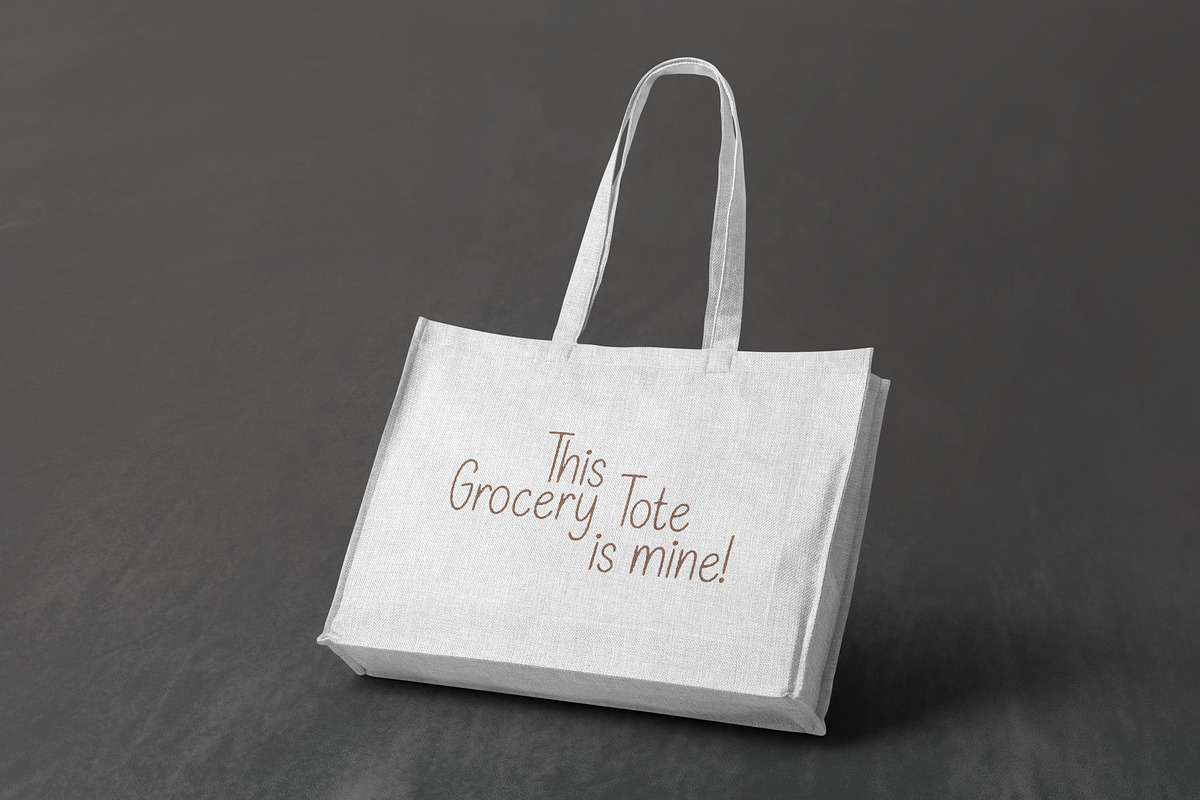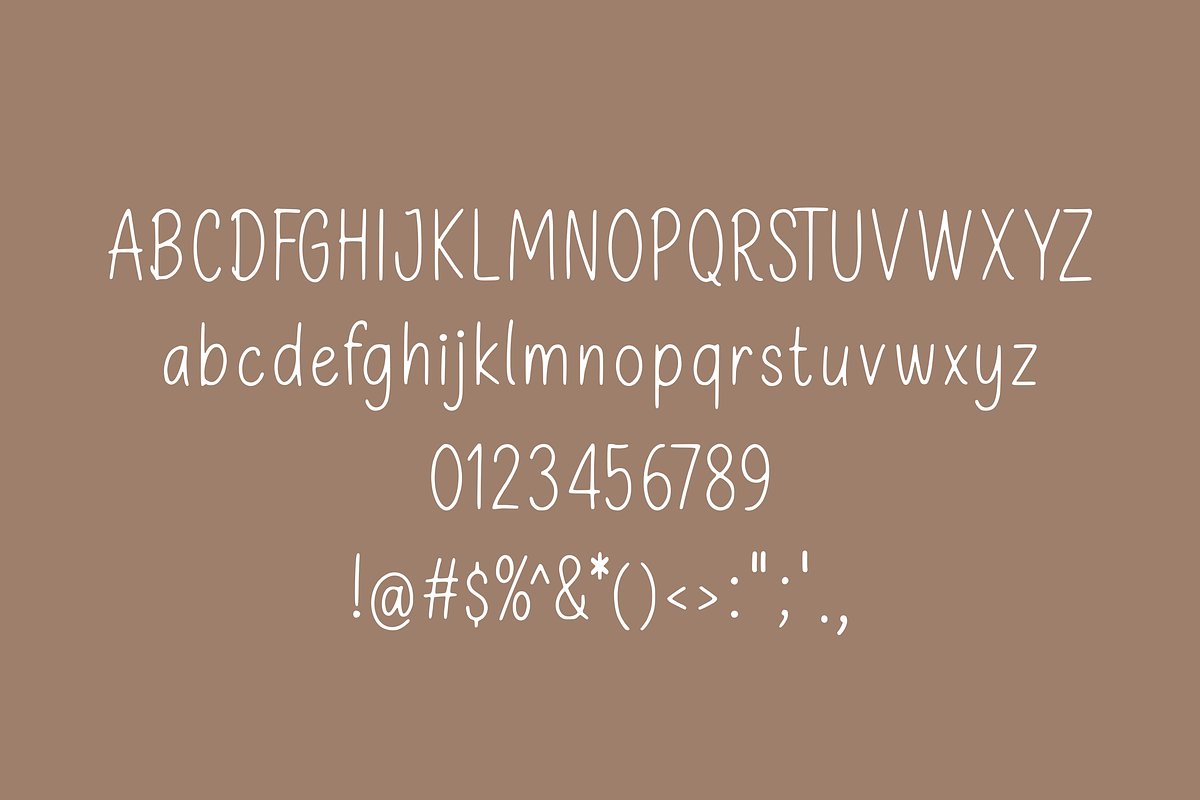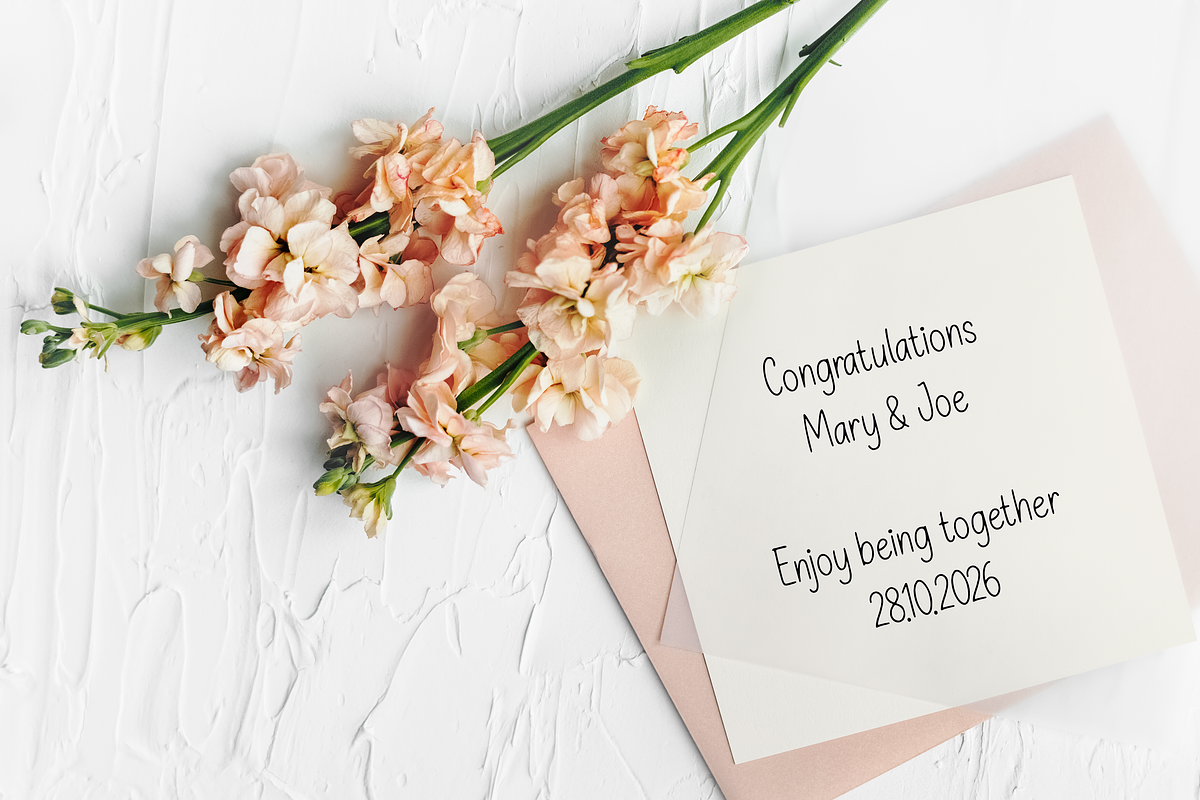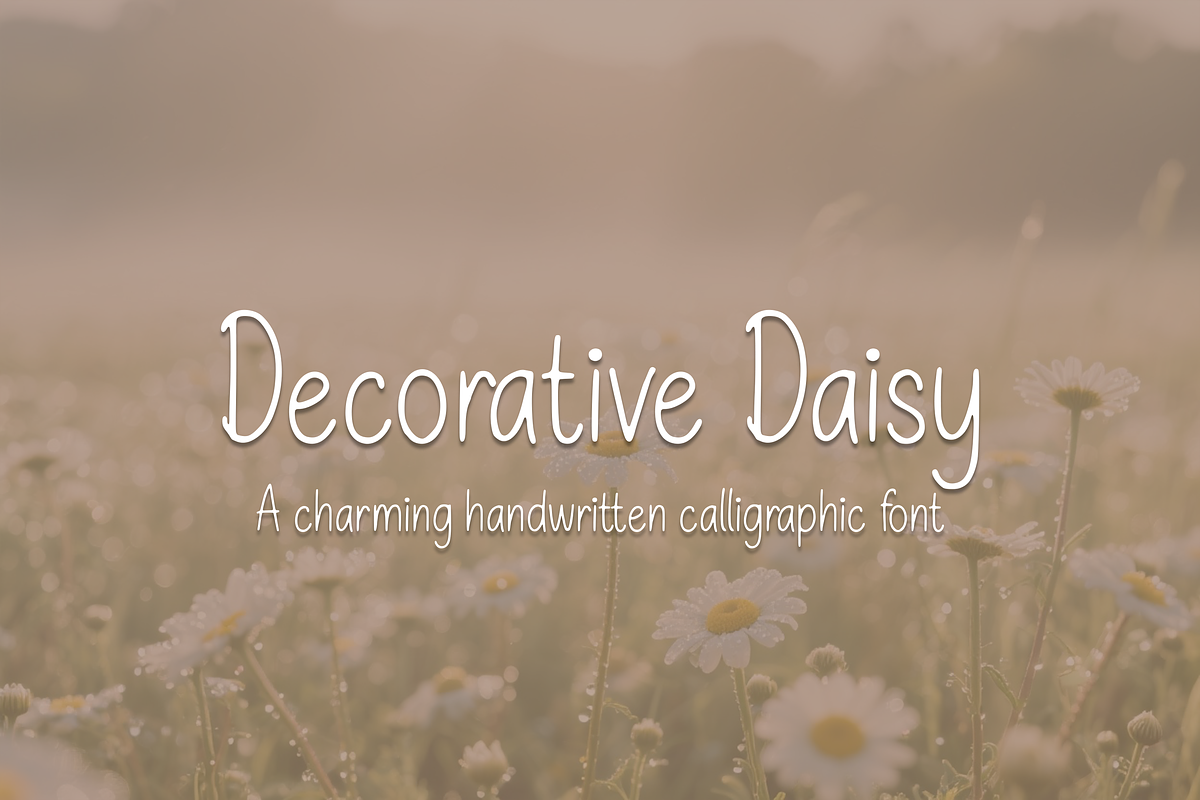
Decorative Daisy font handwritten
Decorative Daisy – A Charming Handwritten Calligraphic Font
Bring a touch of whimsical elegance to your designs with Decorative Daisy – a charming handwritten font with soft curves and a delicate calligraphic style. This font is perfect for adding warmth and personality to your creative projects, whether you're designing wedding invitations, social media quotes, logo designs, or greeting cards.
With its playful yet graceful aesthetic, Decorative Daisy captures the light-hearted spirit of handwritten lettering while maintaining the clean structure of a professional typeface. Let your creativity bloom with this sweet and versatile font!
- Wedding designs & stationery
- Instagram posts & quotes
- Feminine branding & logos
- Scrapbooking and journaling
- Baby showers & birthday invites
- Blog headers & Etsy banners